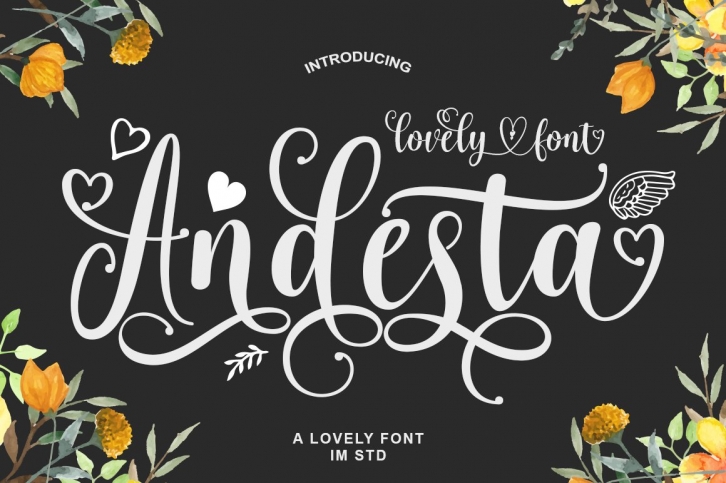
Andesta is a gorgeous font that was realeased on September 20, 2021. The font can be used in many style contexts and design environments. Perfect for invitations, magazines, websites, logos, and more! It was designed by IM Studio and the file size is 4.16 MB. Thanks for checking out this font!